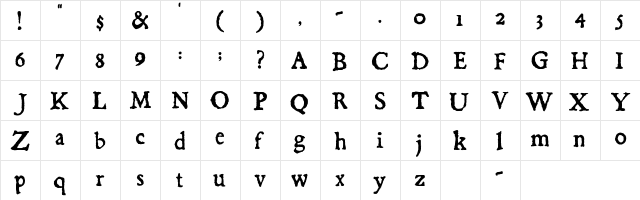
2Peas Sleigh Ride 2Peas Sleigh Ride Font Preview
Design Context for 2Peas Sleigh Ride Typeface
2Peas Sleigh Ride takes a measured approach to typography — its balanced proportions and neutral character make it a reliable workhorse for both digital and print work.